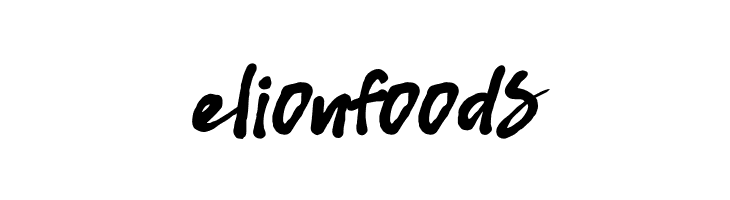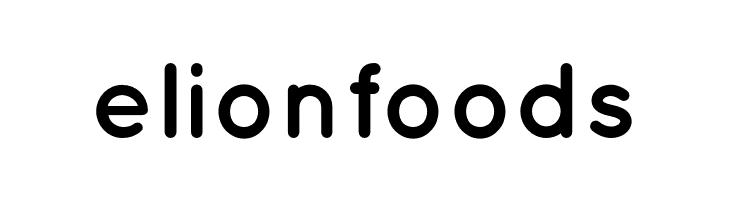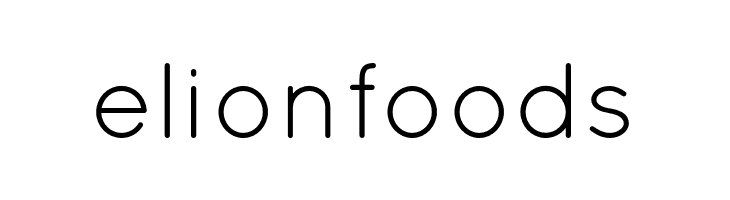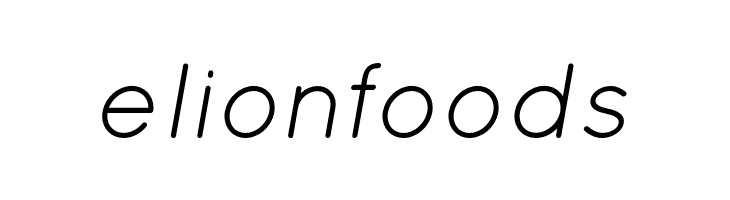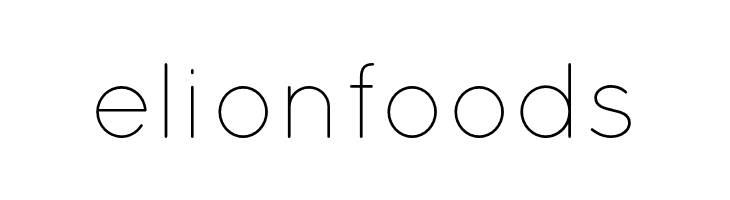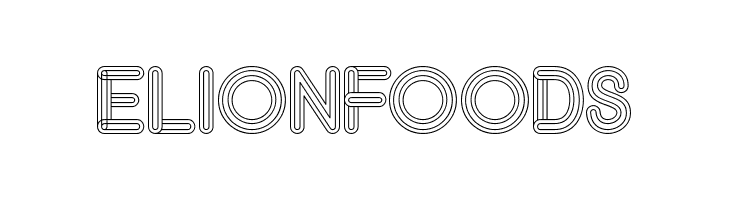
A bold, energetic handwritten font with a playful and casual style.
A playful, handwritten font with smooth curves and a friendly appearance.
A modern, rounded sans-serif font with a bold weight and clean design.
A modern, rounded sans-serif font with a clean and approachable design.
A modern, rounded font with a slight italic slant and uniform stroke width.
A modern, light, and geometric sans-serif font with rounded edges.
A bold, geometric font with a layered outline style and modern aesthetic.
A bold, playful font with a retro, cartoon-like style.
A bold, playful font with a shadow effect and rounded, thick characters.
A playful, bold font with a retro, cartoonish style.